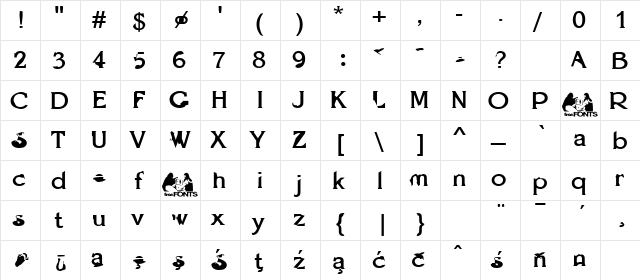
Option Explicit Regular
Design Context for Option Explicit Typeface
Option Explicit is a composed and adaptable typeface that performs quietly and consistently across a wide range of design contexts.